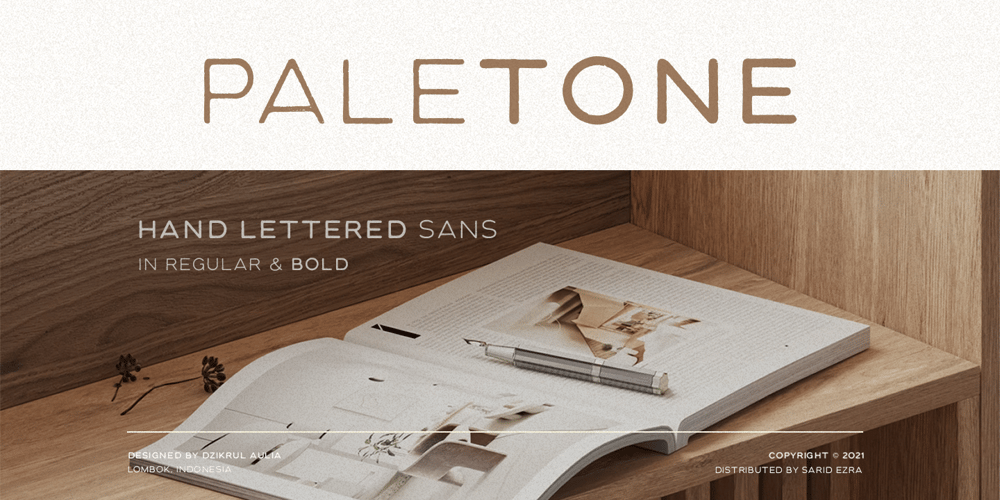
Paletone Font Family was designed by Sarid Ezra, Dzikrul Aulia and published by Bale Type. Paletone contains 2 styles and family package options. Paletone is hand lettered sans in two style, Regular & Bold. With the organic and handmade feels, you can use this font for any project. This minimalist font also suitable for the project with earth tone color. Also good for quotes.